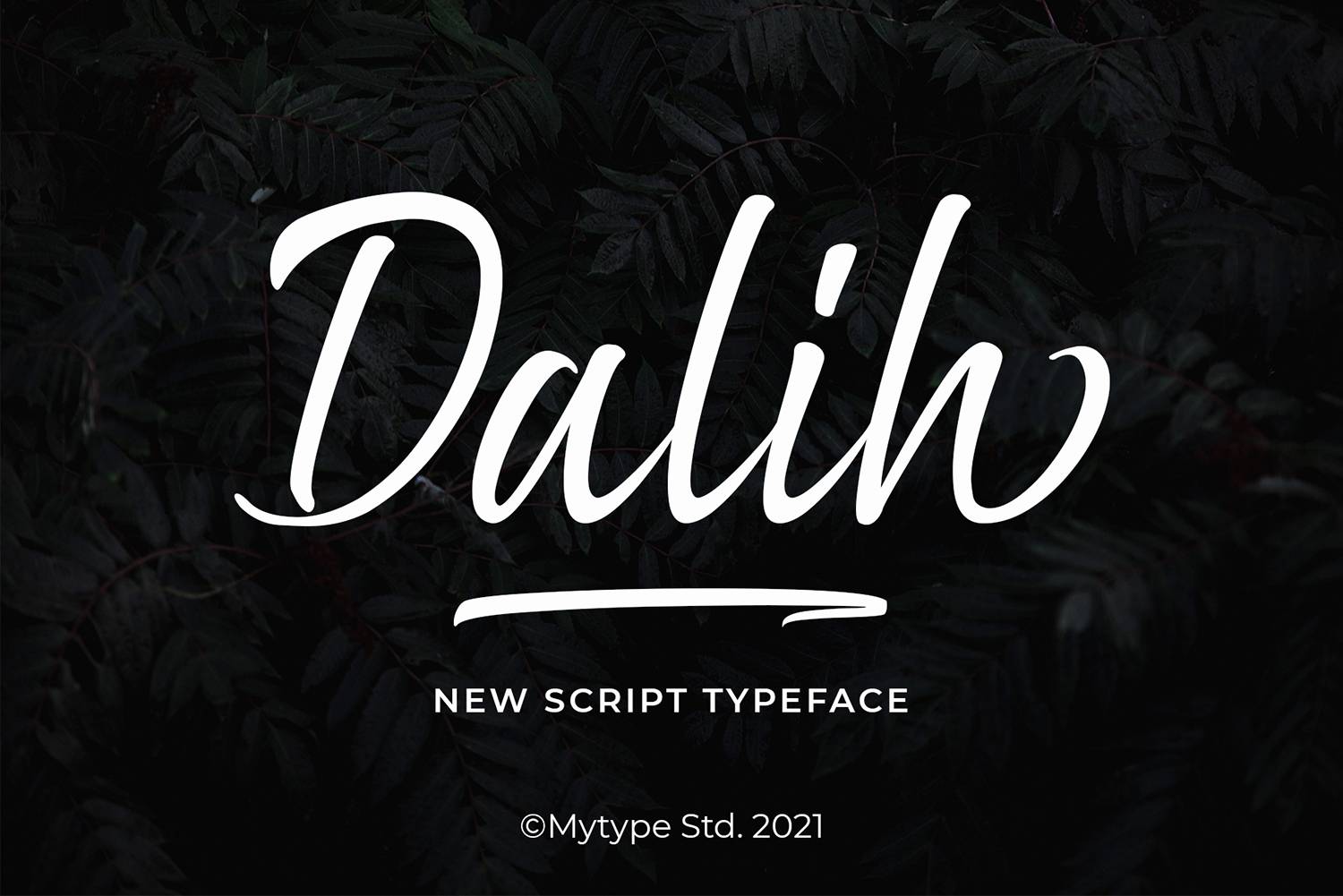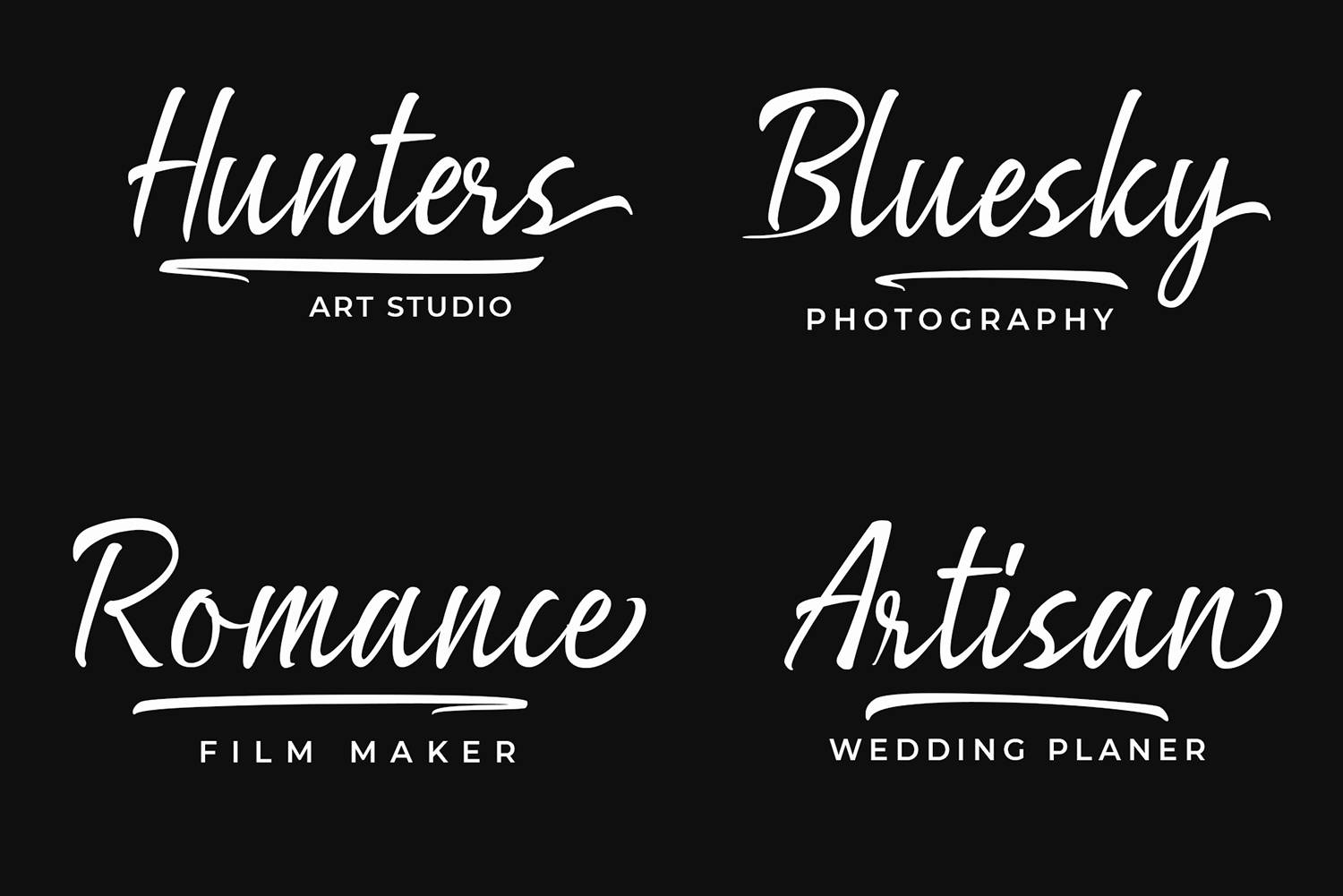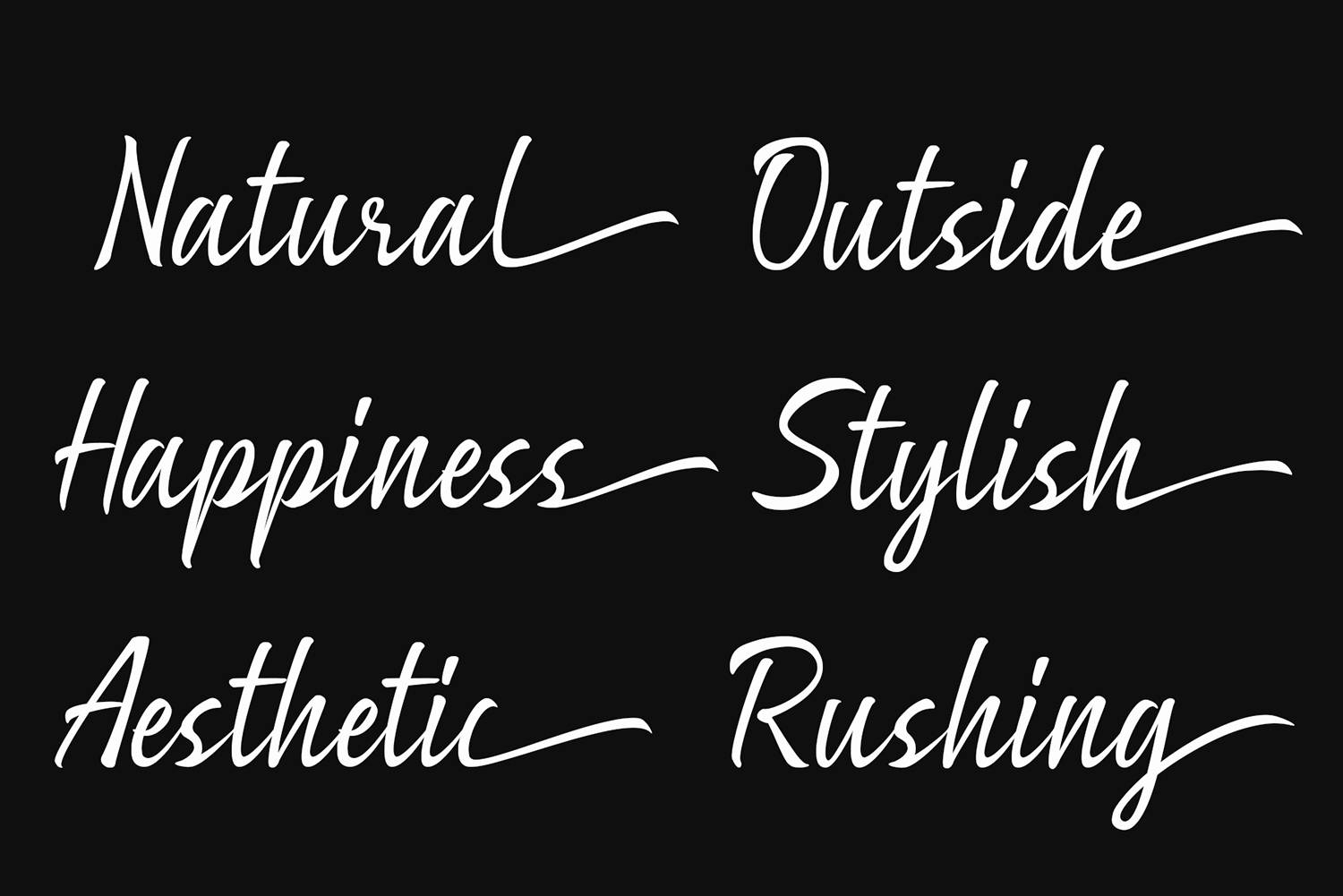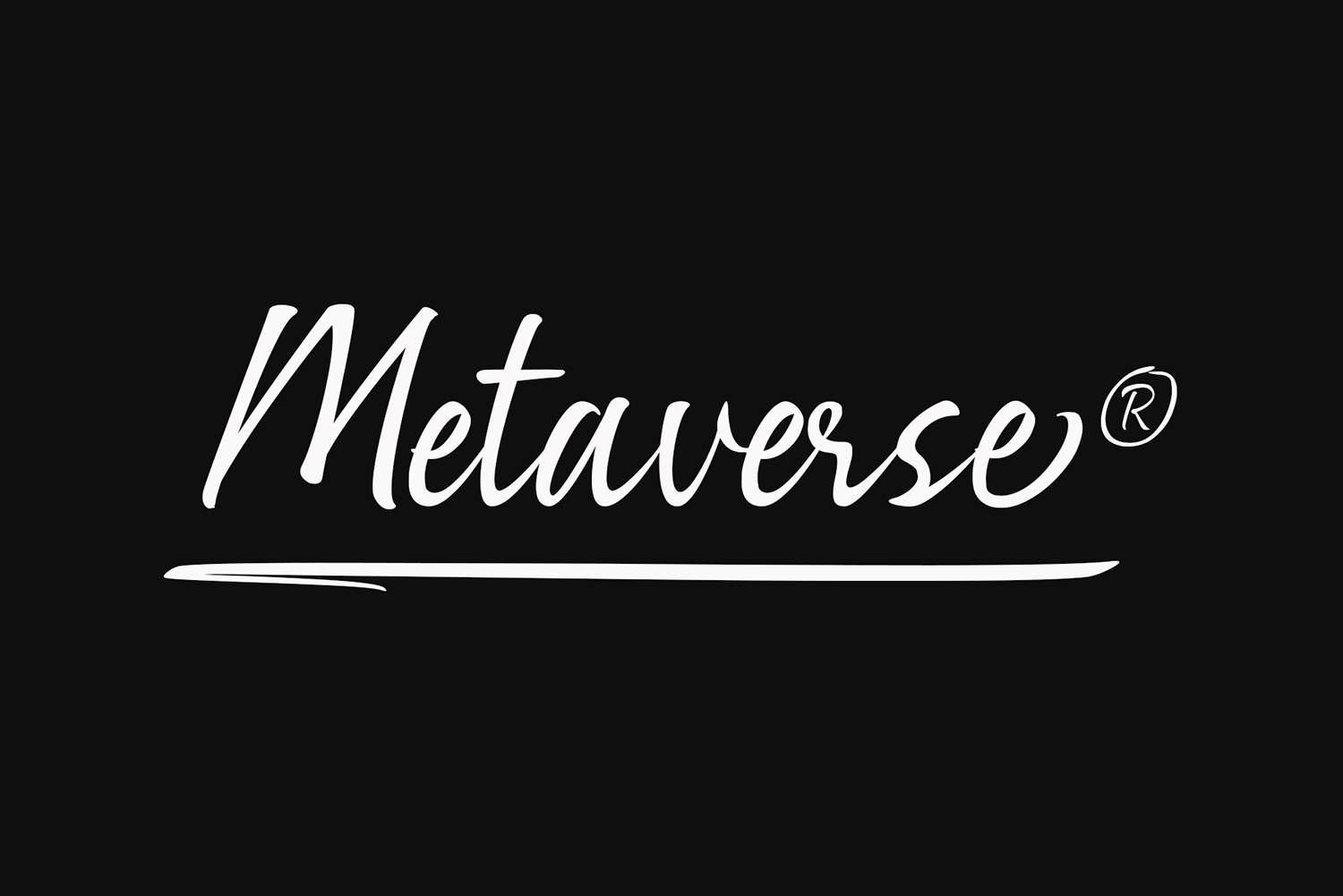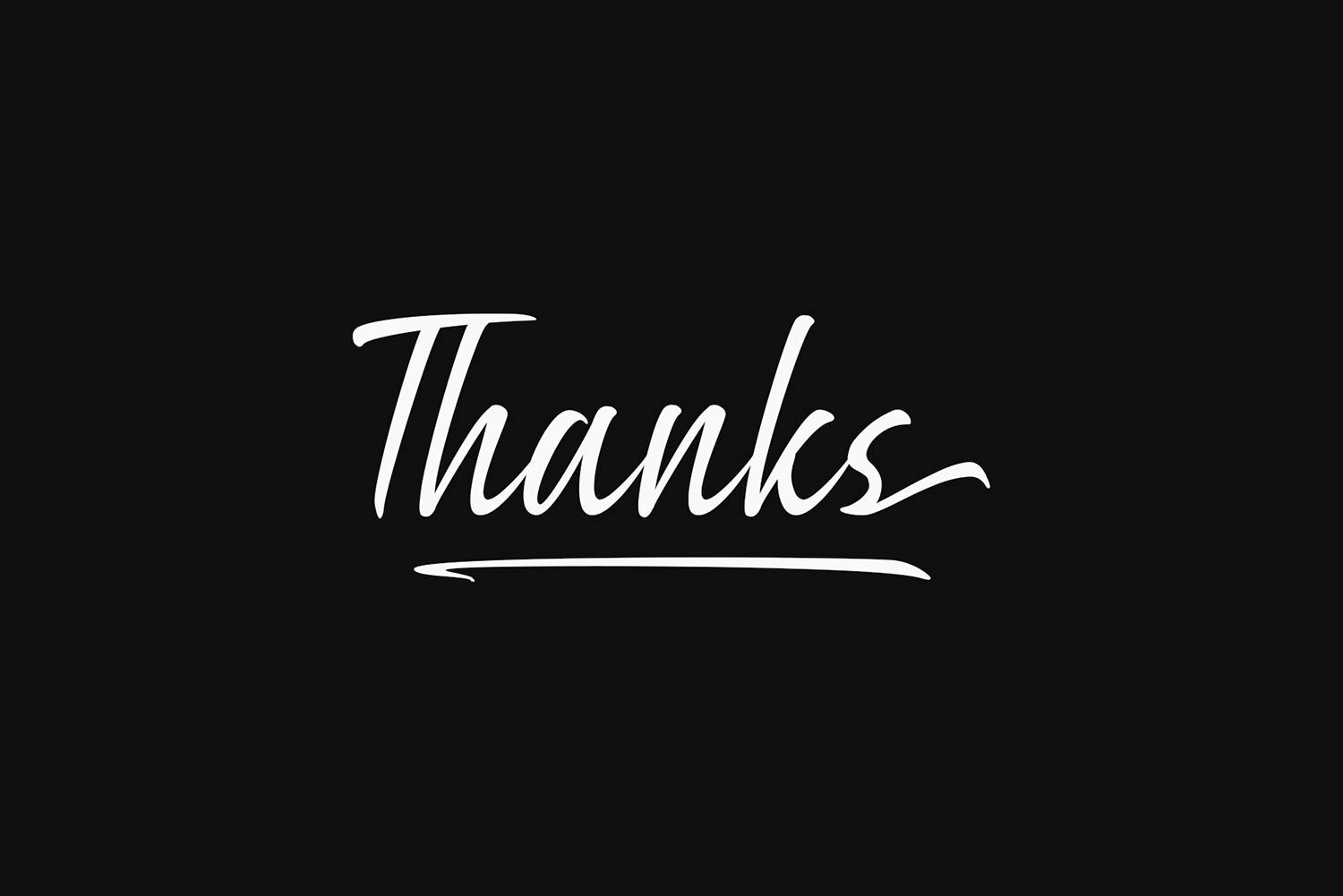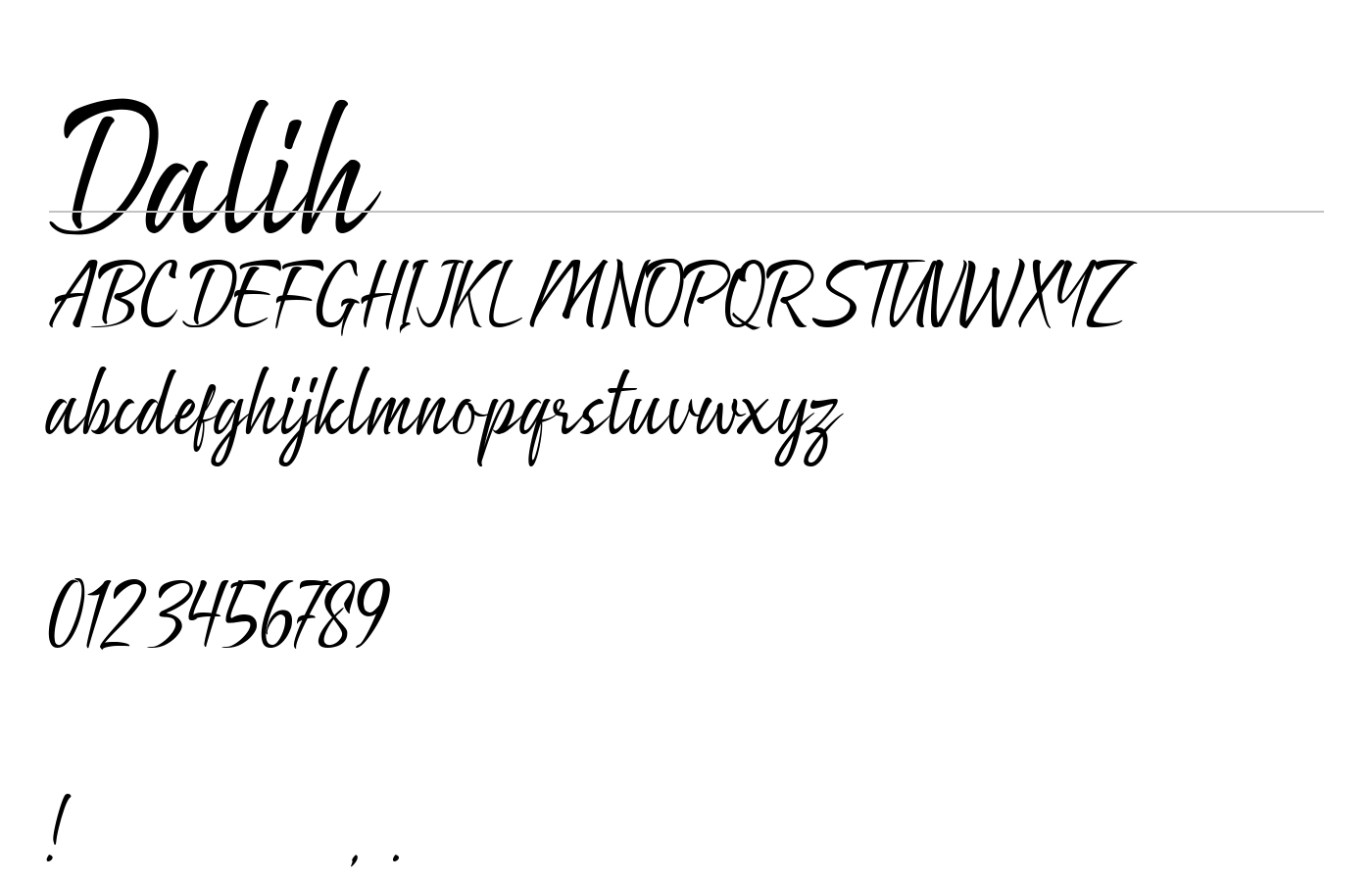
Dalih is a stylish, handwritten script font with an elegant and flowing character that combines a light weight with moderately condensed letterforms. Its smooth, calligraphic strokes and slightly playful flair make it ideal for branding, invitations, and creative projects that require a personal yet sophisticated touch. This font works beautifully in headlines, logos, and packaging where a refined, handcrafted feel is desired.
Dalih Font
About Dalih Font